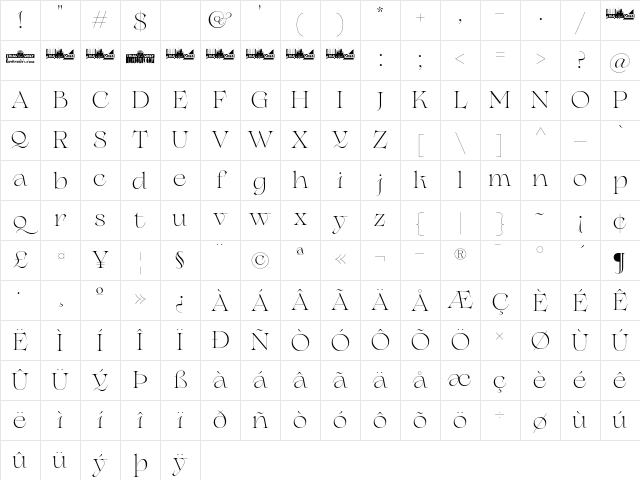
Erotique Trial Regular
Foundry: Zetafonts
Designer: Cosimo Lorenzo Pancini, Mariachiara Fantini, Solenn Bordeaux, Andrea Tartarelli
Design Context for Erotique Trial
Erotique Trial is a composed and adaptable typeface that performs quietly and consistently across a wide range of design contexts.